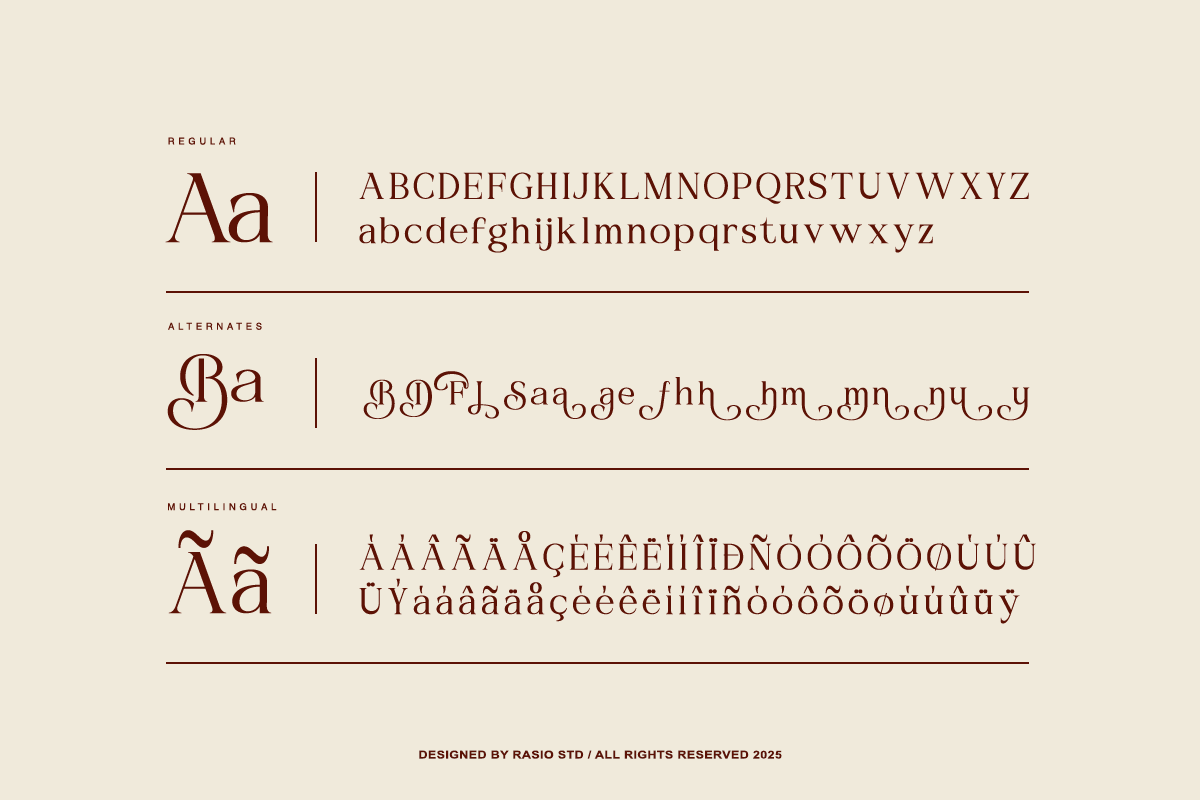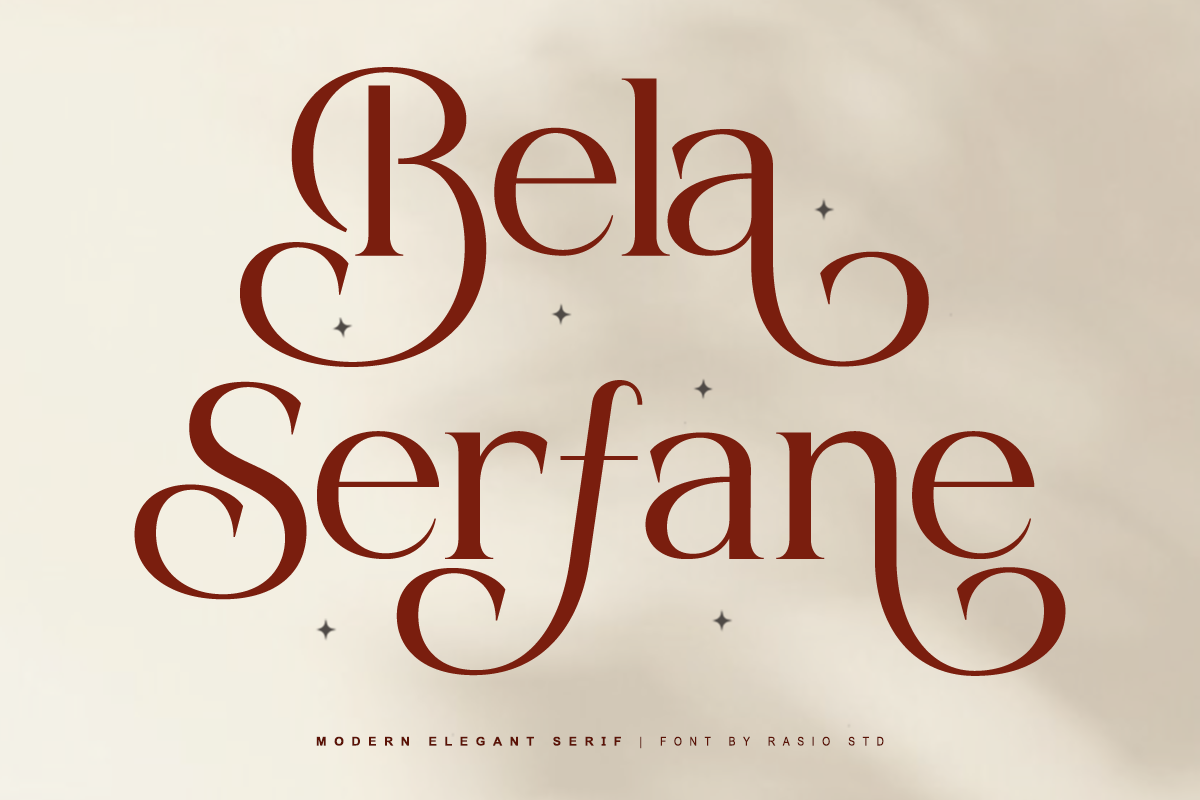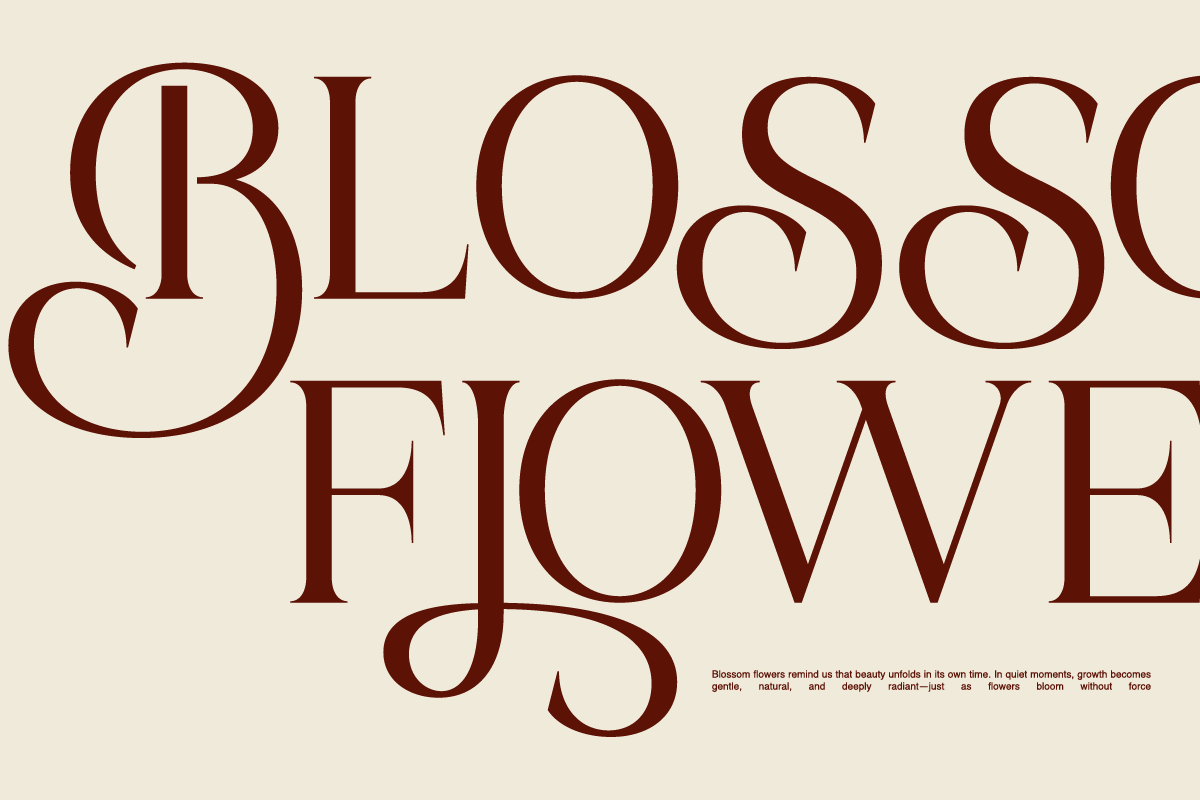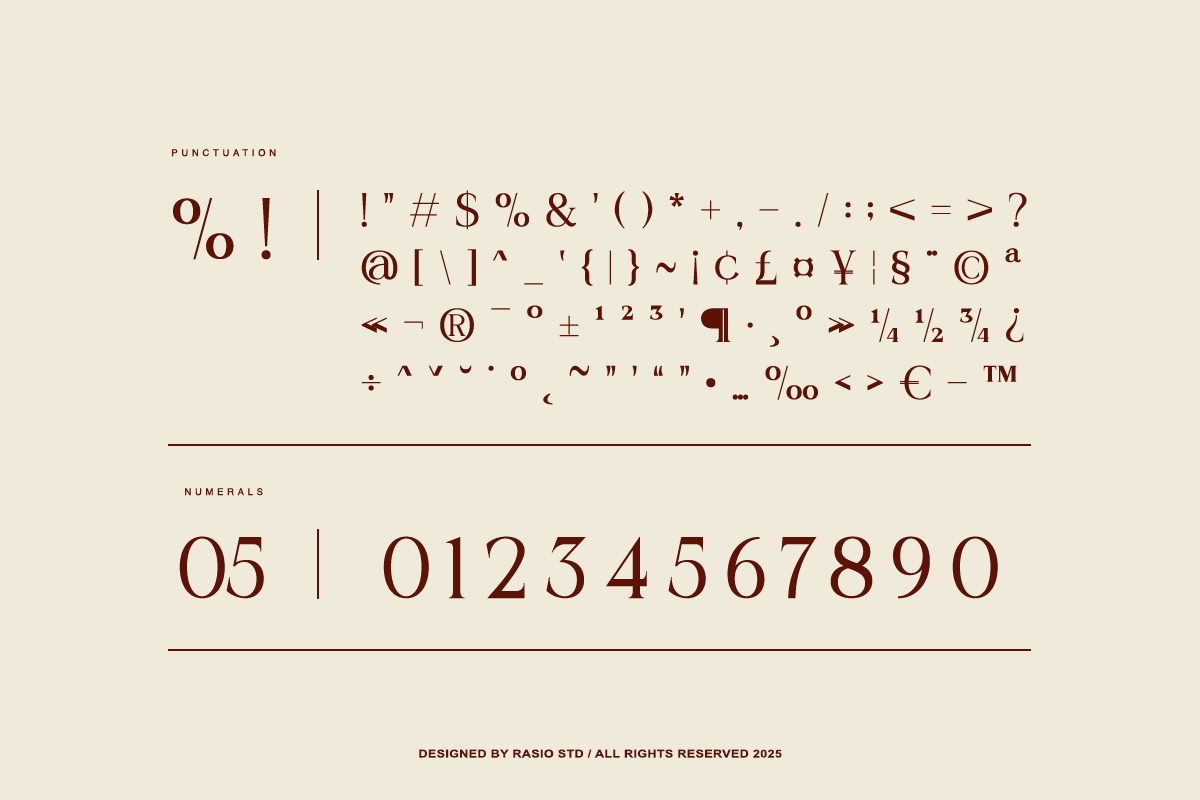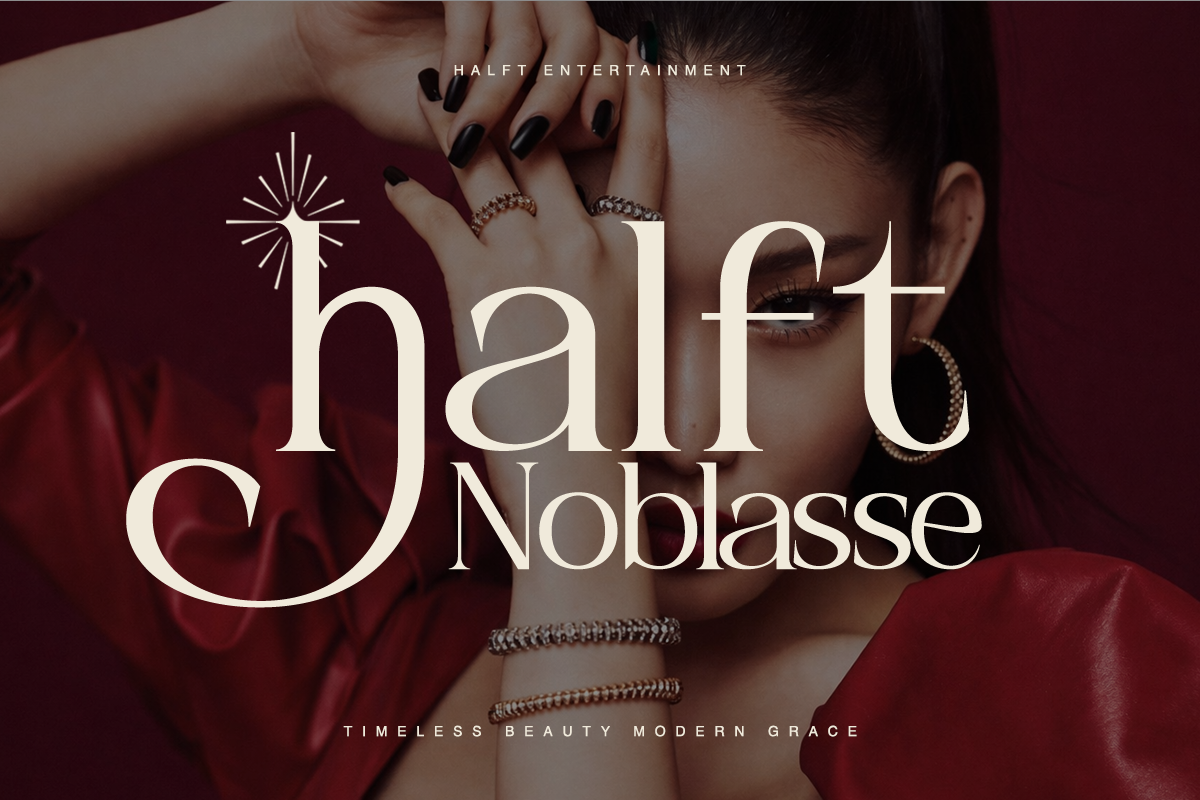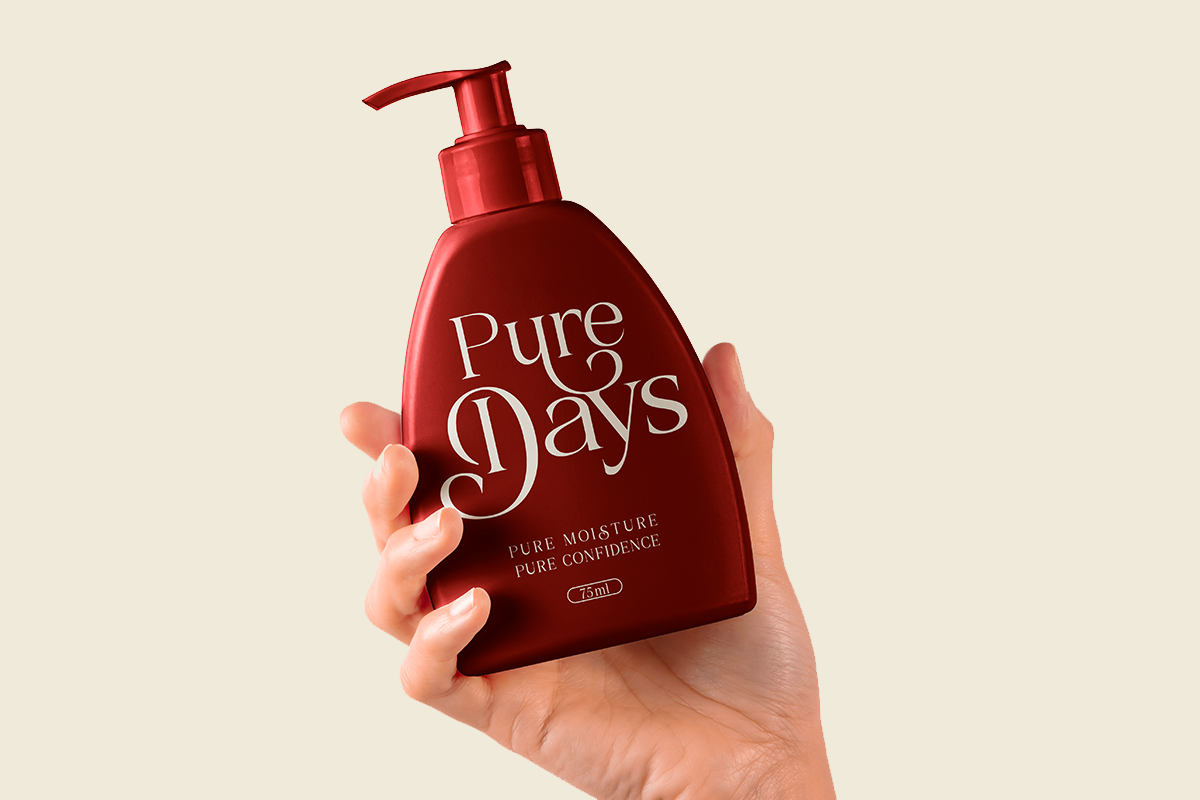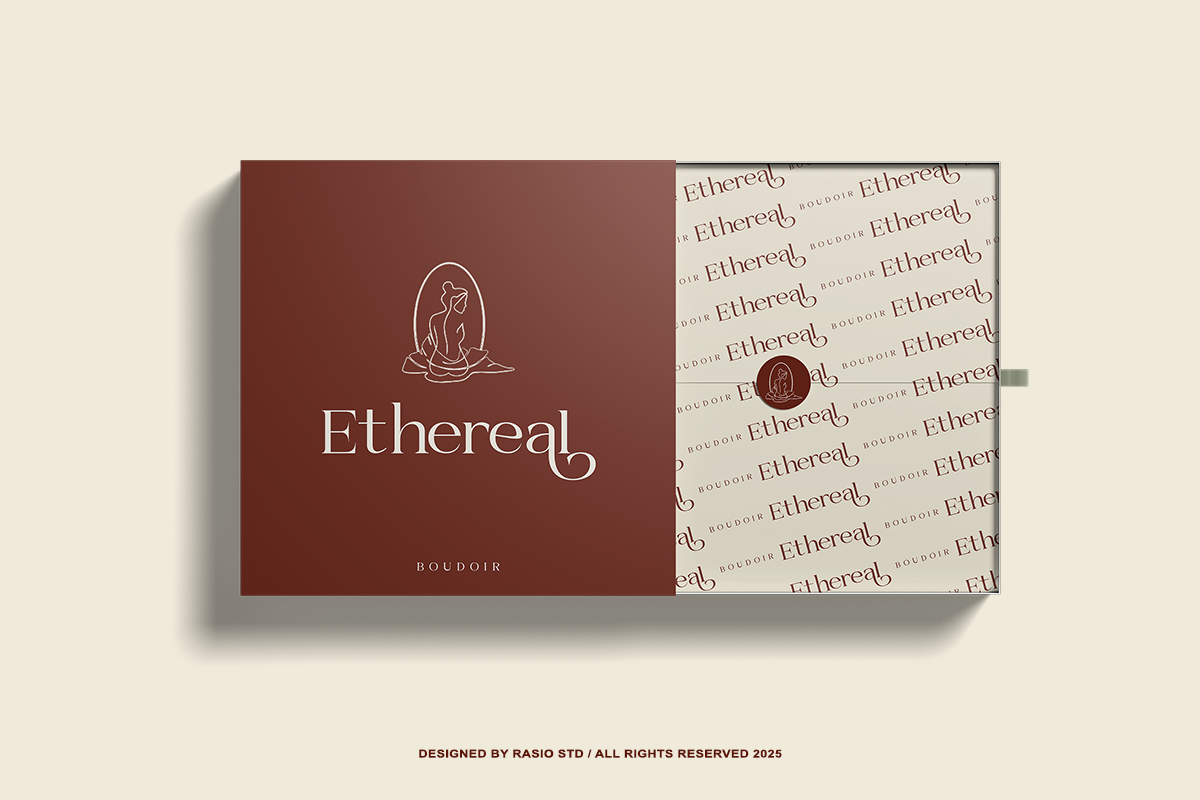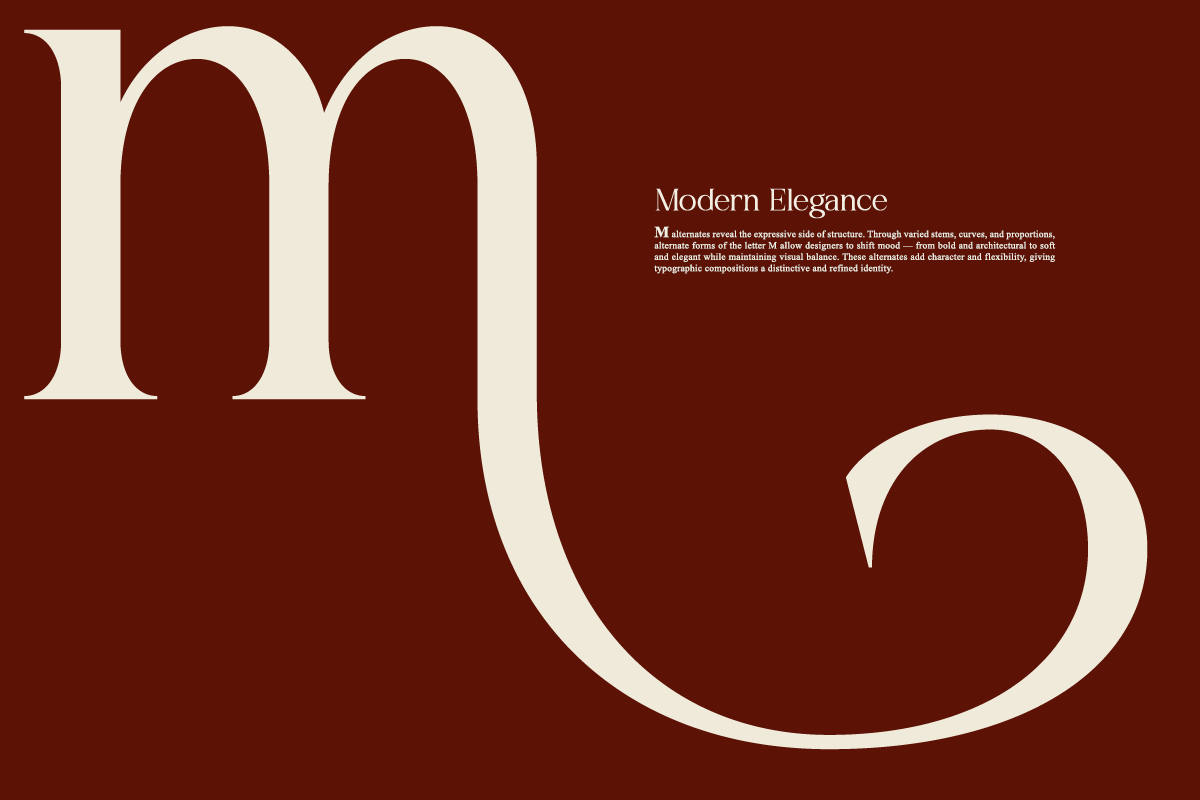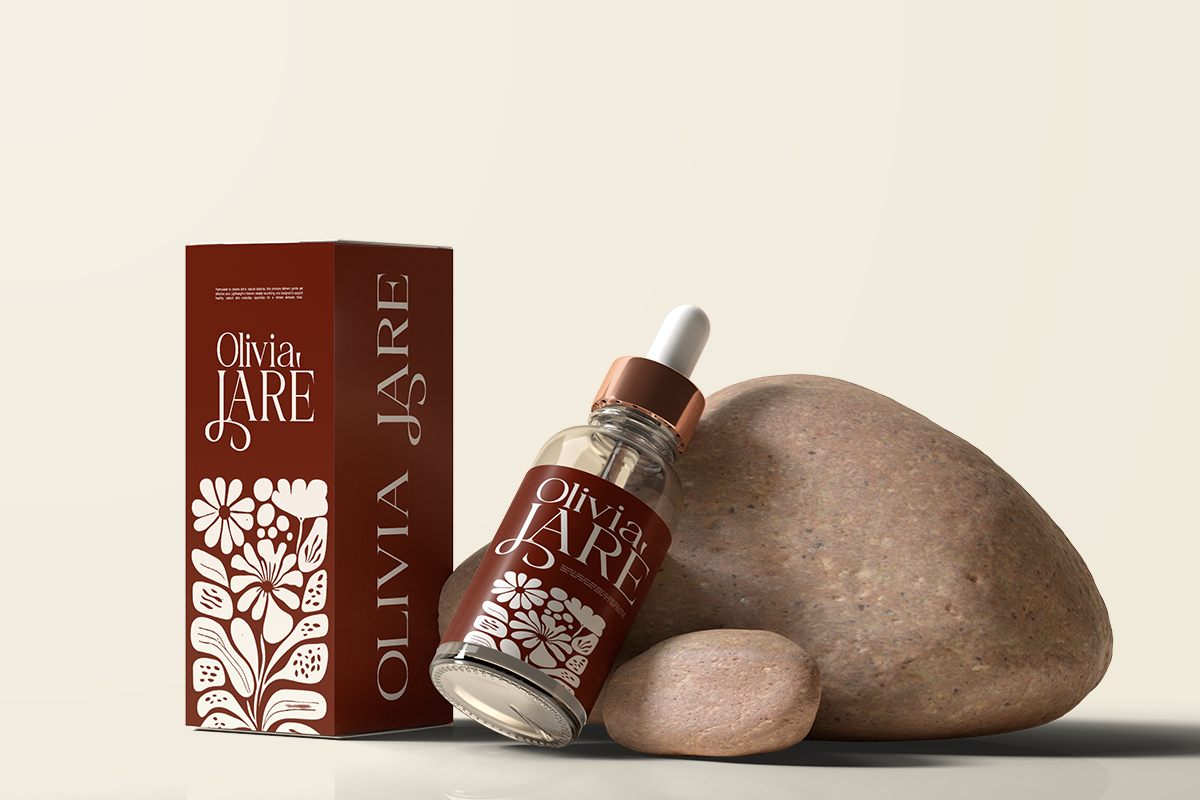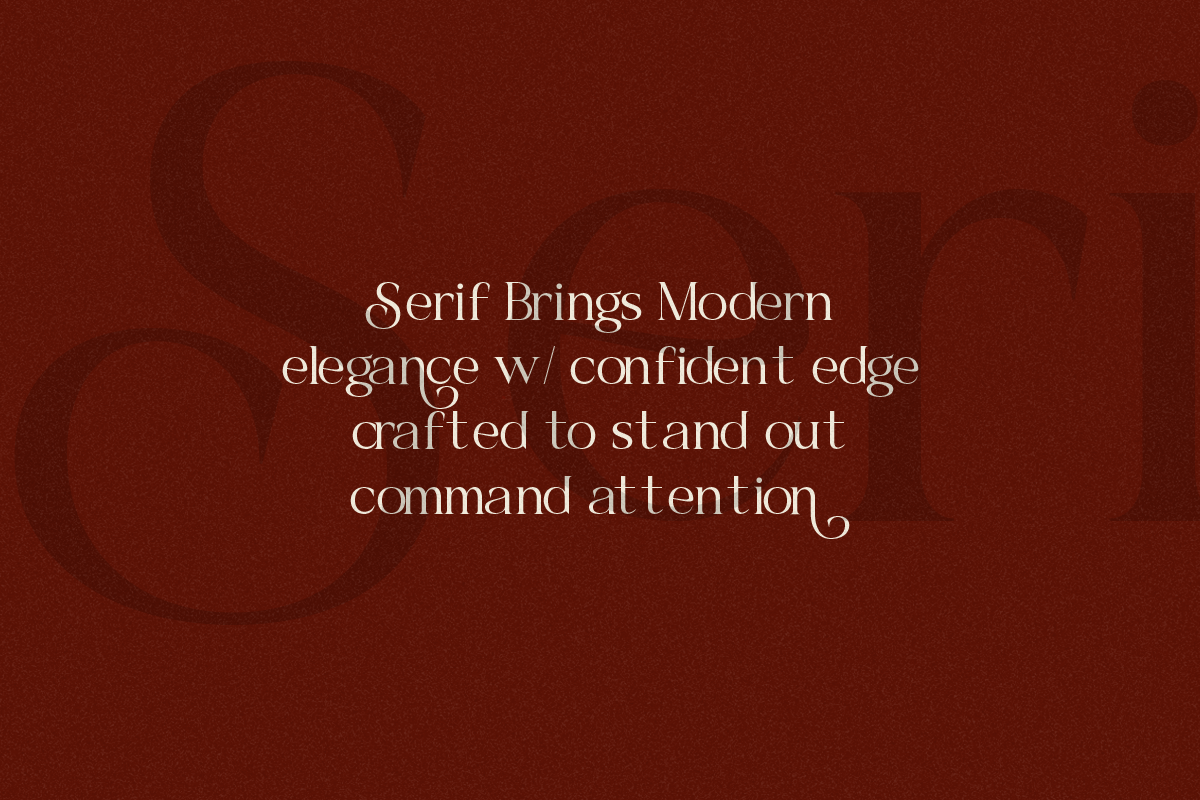
Bela Serfane Elegant Serif Font
Bela Serfane is a refined modern serif typeface crafted with high-contrast strokes, graceful curves, and sculpted terminals that create a timeless luxurious presence. The design combines slender proportions with delicate details, flowing alternates, and decorative ligatures that enhance elegance while maintaining clarity and balance.
Relevance and Use Cases is perfect for luxury brand identities, fashion editorials, wedding stationery, beauty packaging, boutique logos, book covers, invitation designs, social media visuals, and any layout that requires refined, graceful, and sophisticated typography. Suitable for luxury branding, logo design, fashion campaigns, wedding invitations, beauty and cosmetic packaging, editorial magazines.
- High-contrast serif structure with refined thick–thin strokes for a luxurious visual rhythm
- Graceful curves and sculpted terminals that create an elegant, flowing character
- Delicate serif details and soft transitions for a timeless classic appearance
- Decorative alternates and ligatures that add expressive and sophisticated typography
- Balanced proportions and careful spacing for clear readability.
- Luxury brand identity systems seeking a refined and timeless tone
- Editorial layouts for fashion magazines, beauty publications, and high-end books
- Wedding stationery, invitations, and sophisticated event branding
- Premium packaging and product labels for cosmetics, fragrance, and boutique goods
- Social media visuals and marketing materials that require an elegant, artistic presence